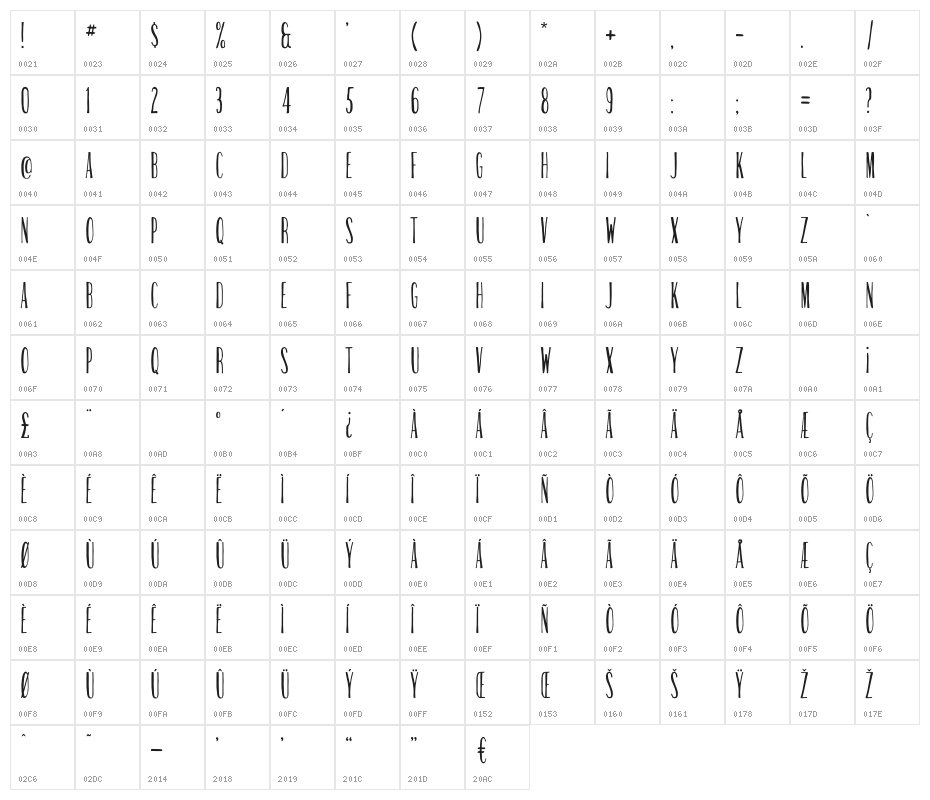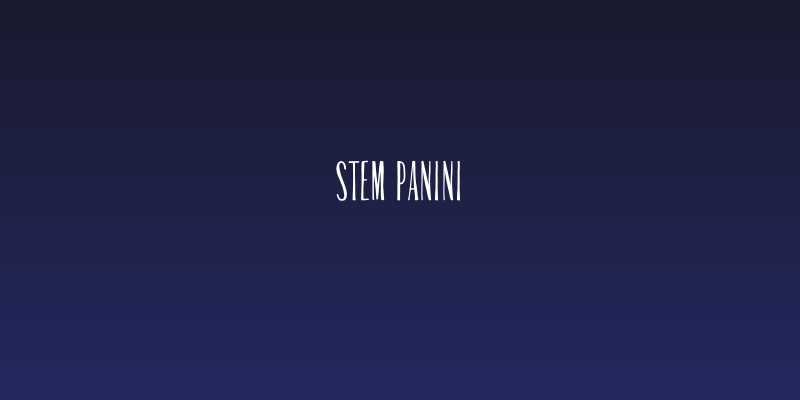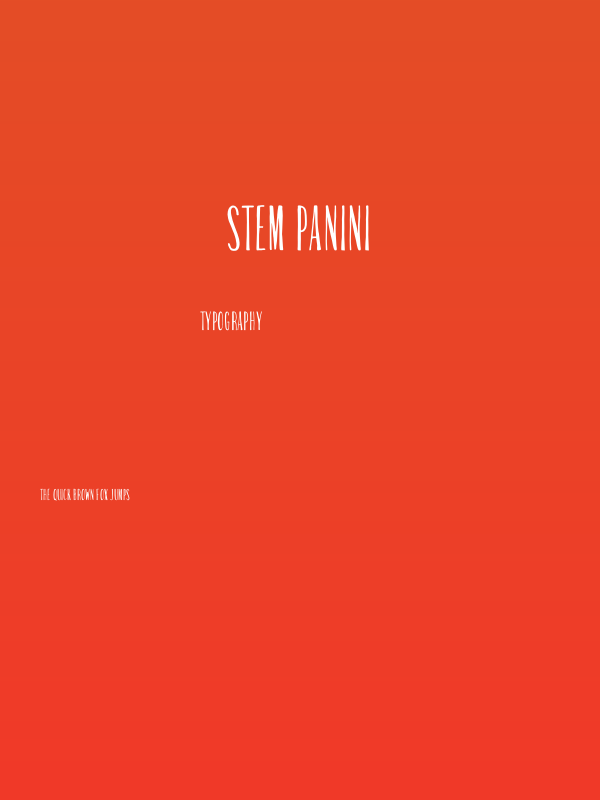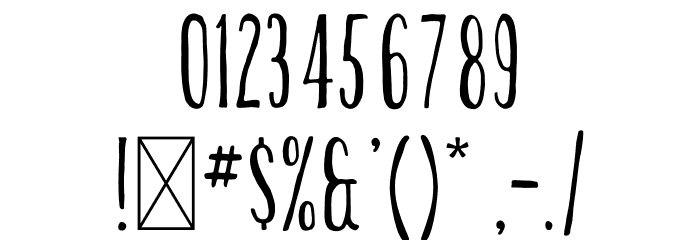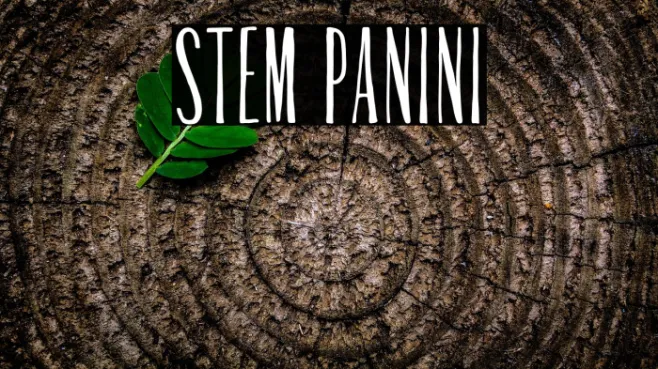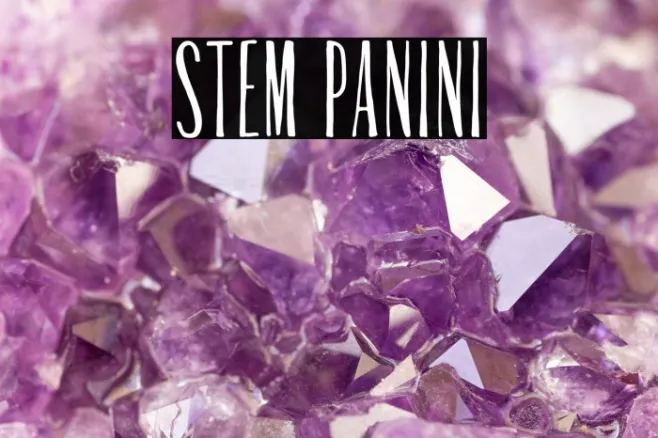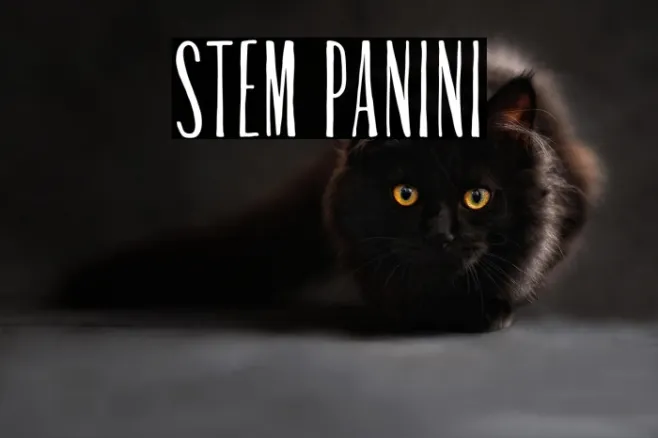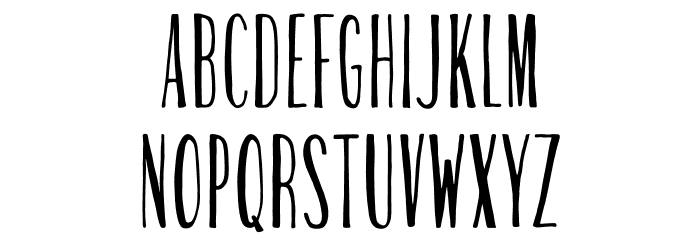
Stem Panini Font
Stem Panini Description
This font features tall, narrow characters with a hand-drawn, organic feel. The strokes are uneven, giving it a playful and informal appearance. The uppercase letters are elongated, while the lowercase letters maintain a consistent height, creating a unique contrast. The numbers follow the same narrow style, and the special characters are creatively designed to match the overall aesthetic. This font's quirky and artistic style makes it stand out, perfect for projects that require a touch of creativity and individuality.
| Proposed Projects | Ideal for posters, greeting cards, artistic branding, and creative projects that require a distinctive and informal touch. |